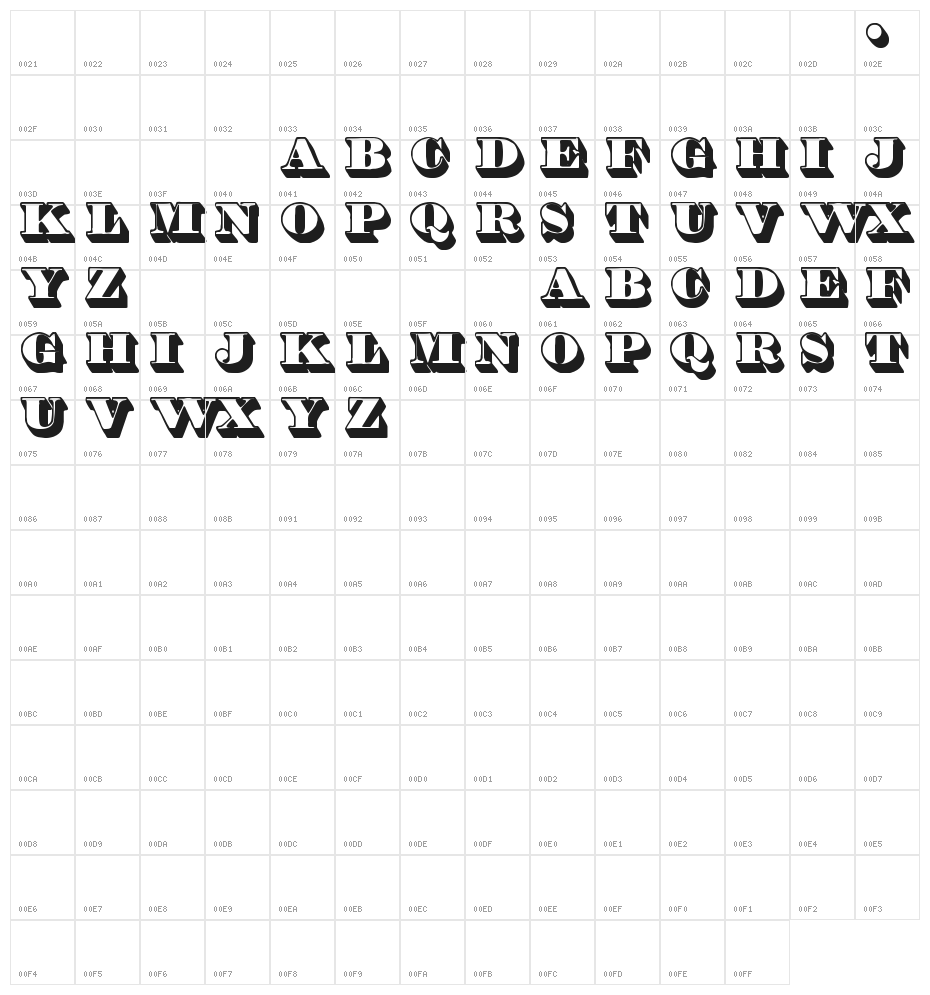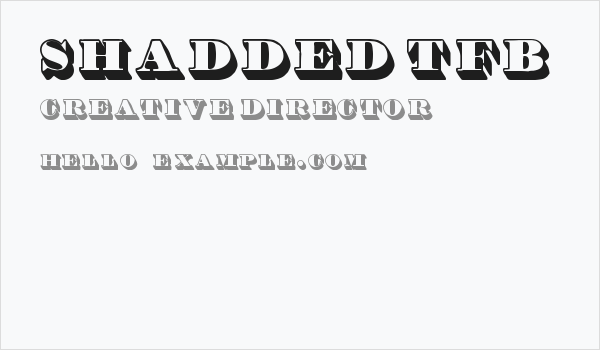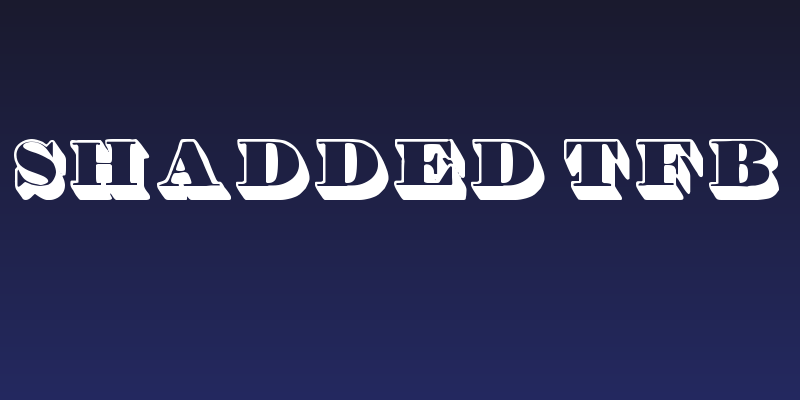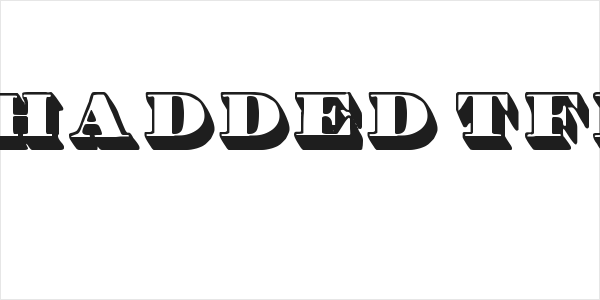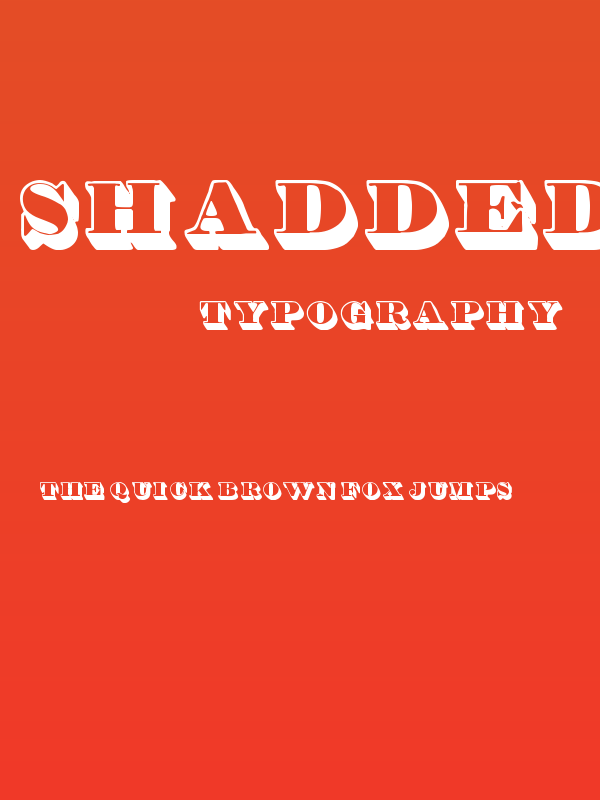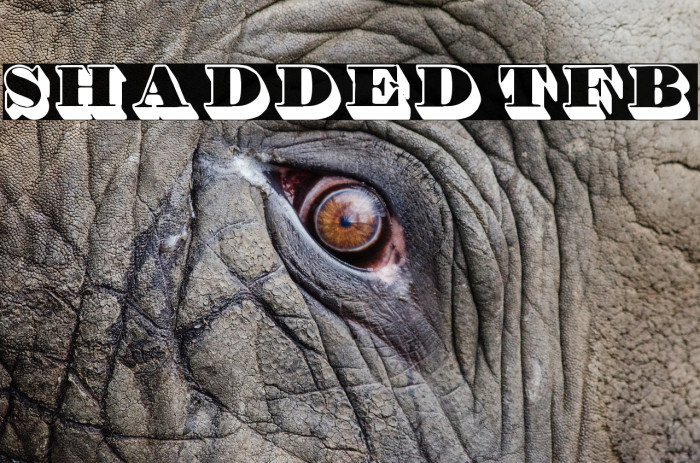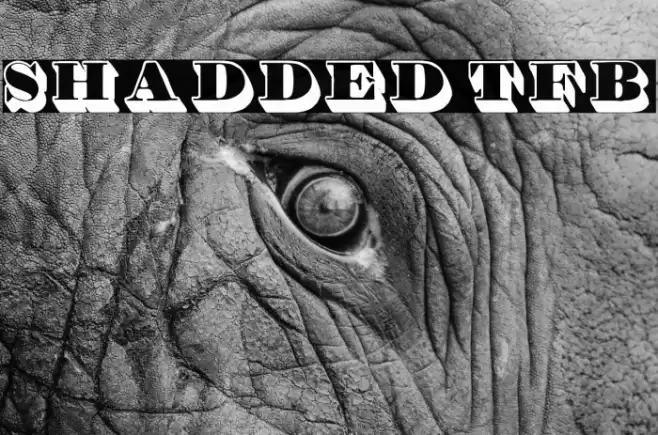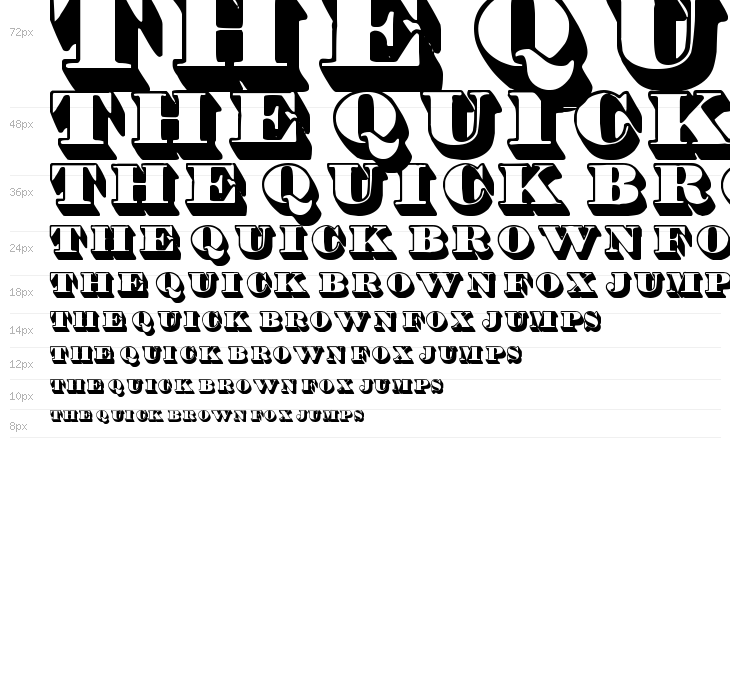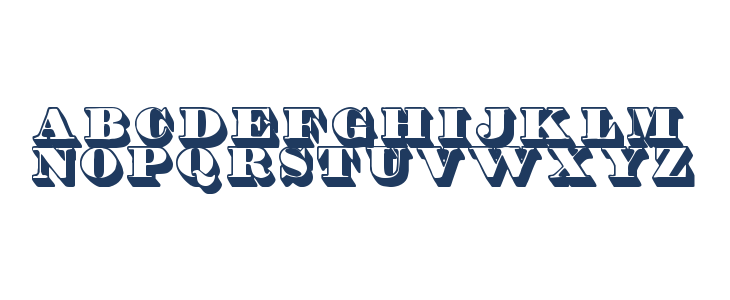
Shadded tfb Font
Shadded tfb Description
This font features a bold, three-dimensional appearance with a distinct shadow effect that gives it a striking and impactful look. The characters are uppercase, with thick strokes and sharp serifs that enhance its boldness. The shadowing adds depth, making the letters appear as if they are lifted off the page. This style is reminiscent of vintage signage or classic poster typography, where visibility and impact are key. The overall design is both decorative and functional, suitable for projects that require a strong visual presence.
| Use Case | Headlines, Logos, Signage |
| Proposed Projects | Ideal for vintage-themed posters, signage, logos, and headlines that require a strong visual impact. |